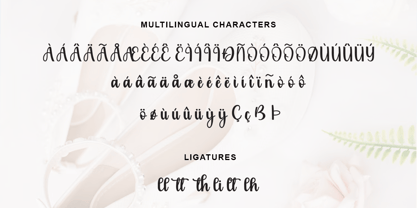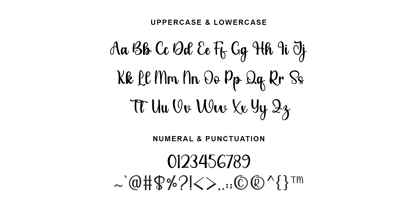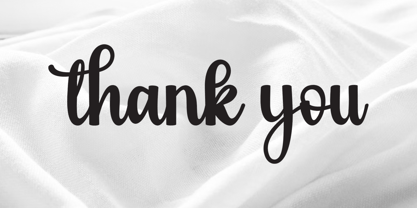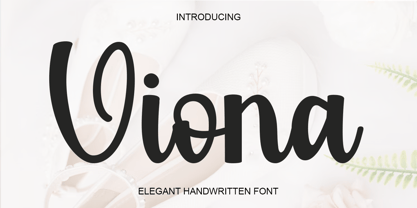
Viona
por Fontysia
La familia tipográfica Viona fue diseñada por Rizal Aiyub y publicada por Fontysia. Viona contiene 1 estilos. Más información sobre esta familia
Viona is a beautiful handwritten script font crafted with elegant curves and a graceful personality. Designed to bring a natural and stylish touch to your creative projects, Santoria combines smooth letterforms with excellent readability, making it both attractive and versatile.
Featuring complete uppercase and lowercase letters, numerals, and punctuation, Santoria is perfect for branding, logos, wedding invitations, greeting cards, social media content, product packaging, quotes, book covers, and craft projects. Its charming handwritten style adds warmth and sophistication to any design.